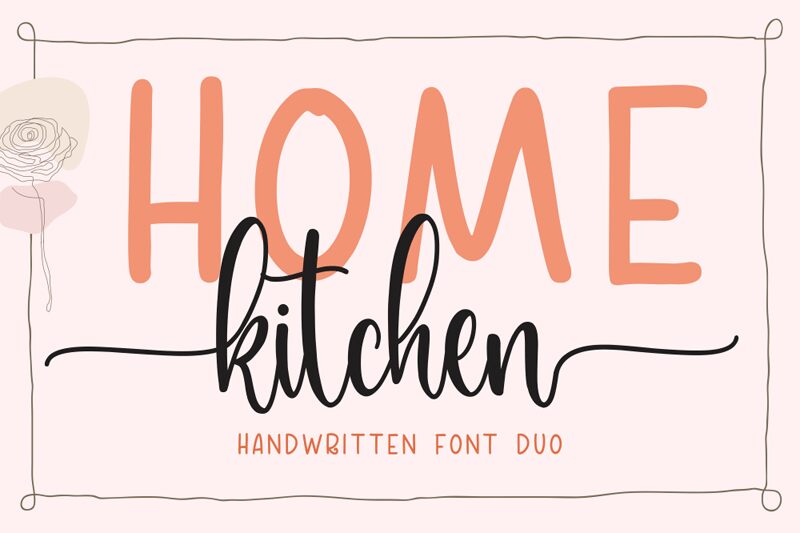
Home Kitchen Sans Bold
Home Kitchen Sans Bold is a one-of-a-kind font that brings a touch of warmth and nostalgia to any creative project. Its handwritten style gives it a unique and personal feel, making it perfect for adding a charming and inviting touch to designs. The semi-light weight and semi-condensed width make it versatile for use in various layouts, from headlines to body text.
Whether you're working on a recipe book, food packaging, or a cozy home decor brand, this font has the potential to elevate your project with its friendly and approachable vibe. The all caps, block letter design adds to its versatility, allowing for easy readability while still maintaining its distinct character.
With Home Kitchen Sans Bold, you can infuse your designs with personality and charm while ensuring legibility and visual appeal. It's the perfect choice for anyone looking to add a touch of homemade authenticity to their creative work.